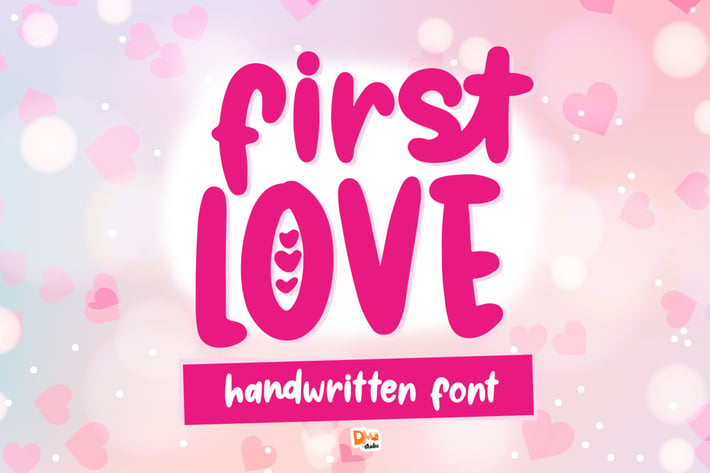
First Love - Cute Handwritten Font
Introducing First Love Font, it's a cute with love theme, fun and bold style handwritten font.
First Love Cute Handwritten Font comes with extra Ligatures to enrich your design or crafts.
Great for DIY crafts making, social media posts, printing, cutting, or for your promotional stuffs.